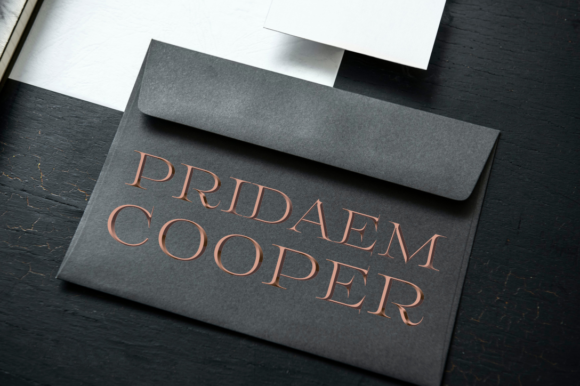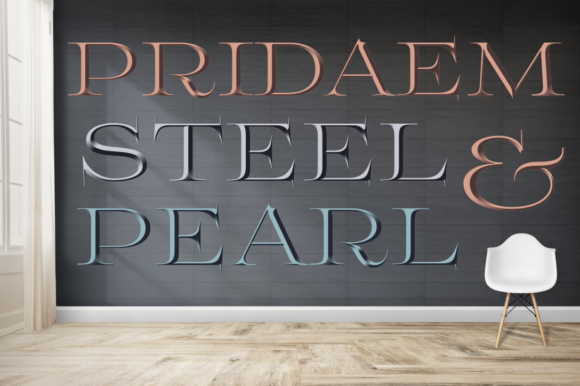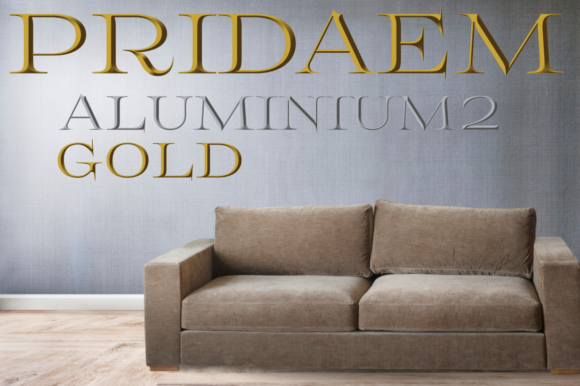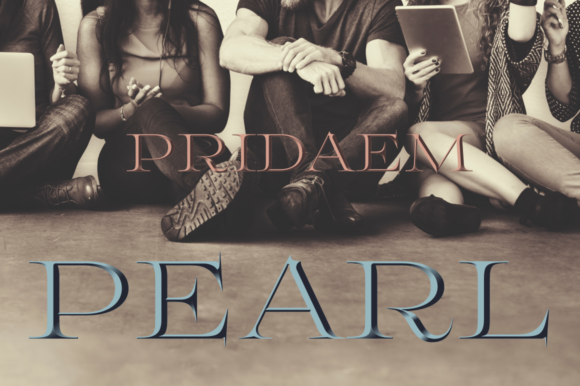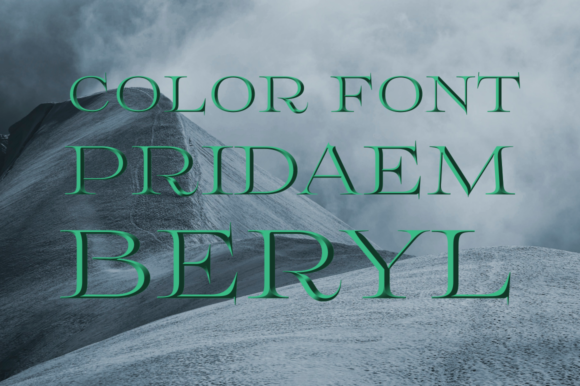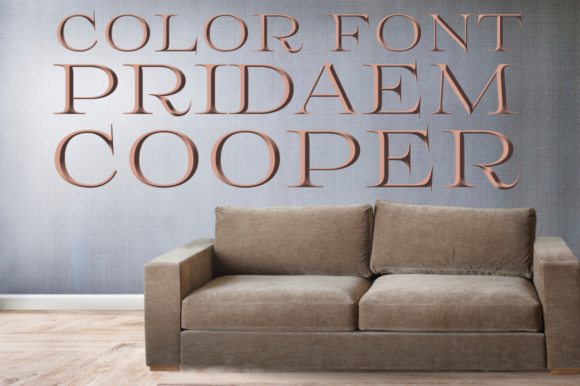
Introduction to PridaEm Font
Have you ever been in the middle of a creative project, and suddenly, the perfect font pops into your mind? For many designers, that moment of inspiration is what sets their work apart. The PridaEm Font is one of those game-changing design resources that can elevate your ideas to new heights. This cool and elegant color font is expertly designed to add a unique touch to any project, whether you’re working on web designs, business cards, or anything in between.
What makes PridaEm Font truly special is its versatility and high quality. With its transparent background and compatibility with popular design software like PhotoShop, Illustrator, Silhouette, and Inkscape, you can unleash your creativity without worrying about limitations. Whether you’re looking for a free download or a reliable design tool, PridaEm Font is an excellent choice for designers seeking a creative edge.
- High-quality, unique font design ideal for creative projects
- Features a transparent background, allowing for easy layering and customization
- Perfect design resource for graphic designers, digital artists, and web developers working on creative projects
Honest Review: PridaEm Font
I recently had the chance to work with the PridaEm Font, and I must say it’s been a great addition to my design resource library. The font is available for free download, which is always a plus, especially for creative projects on a tight budget.
Here are some things that work well with the PridaEm Font:
- High-quality design: The font has a clean and modern design that’s perfect for a variety of projects.
- Transparent background: This allows for easy use with transparent backgrounds and images.
- Customization: The font can be easily customized to fit the needs of your project.
- Limited character set: The font only includes a limited number of characters, which may not be suitable for projects that require a full range of characters.
- No bold or italic styles: The font does not come with bold or italic styles, which can limit its use in certain situations.
Overall, I’m impressed with the PridaEm Font. It’s a great addition to any design library and works well for a variety of creative projects. While it has some limitations, it’s still a high-quality font that’s definitely worth considering.
PridaEm Font
PridaEm Font is a high-quality design resource perfect for your next creative project. With a transparent background, it’s easy to integrate into your design.
Tips for Getting the Most Out of PridaEm Font
For optimal results, use PridaEm Font on a high-resolution design and experiment with different font sizes and styles. You can also combine it with other design elements to create a unique look.
PridaEm Font is ideal for branding, marketing materials, and creative projects. Its high-quality design and transparent background make it a versatile resource for any design task.
Compared to PridaEm Font, Great Vibes Font has a more refined and cursive style, making it suitable for projects where a more formal look is desired. While PridaEm Font has a more playful and quirky feel, Great Vibes Font is better suited for projects that require a touch of elegance.
Compared to PridaEm Font, Alex Brush Font has a more organic and handwritten feel, making it suitable for projects where a more personal and unique look is desired. While PridaEm Font is more versatile and can be used in a wide range of projects, Alex Brush Font is better suited for projects that require a more personal touch.